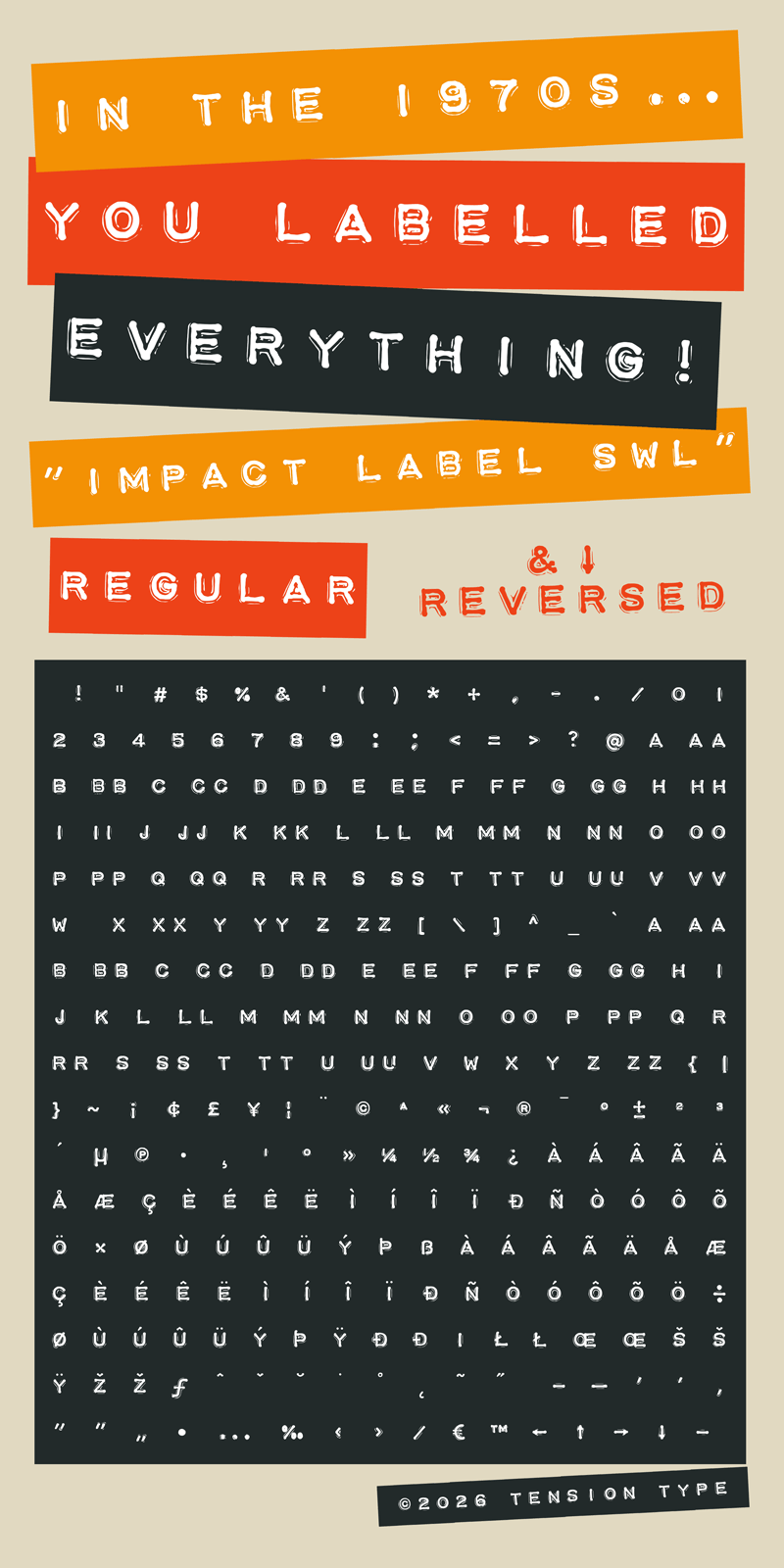
Impact Label SWL
I created this typeface after finding an old white labeled Dymo labeller in a second hand store. It had two versions of type. One was horizontal with a a look I hadn’t seen before so I decided to make it into a font. I made tit monospaced and added most of the basic latin characters. The automatic Ligatures will not work in InDesign because of how the software adds an extra space (black in this case) over top of the glyph. You’ll have to use Impact Label SWL Reversed and add your own rectangles behind your type to use them in this app.